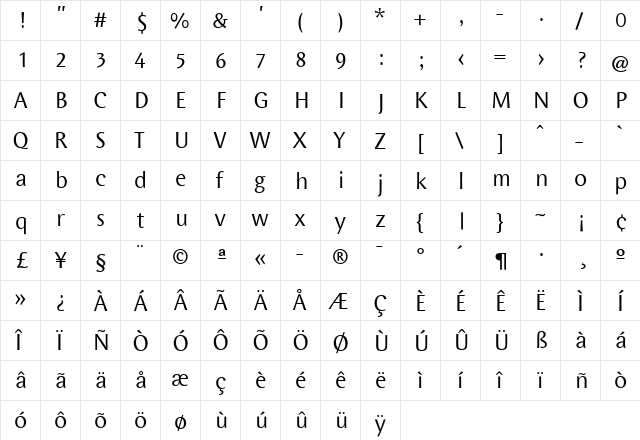
Wunderlich Regular
| Foundry | Copr. Martin Wunderlich, FontShop International |
Design Context for Wunderlich Typeface
Wunderlich offers clean, dependable letterforms without strong stylistic allegiance, making it a practical choice for designers who need flexibility.